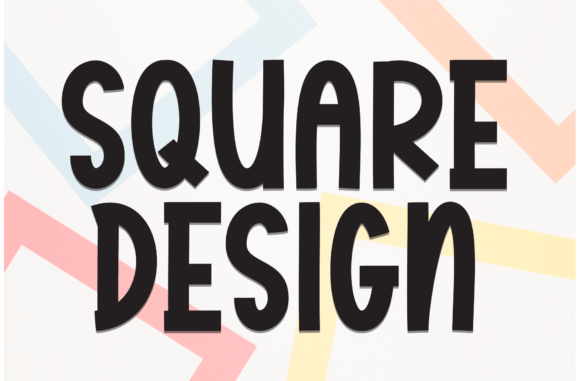
Introducing Square Design Font: The Perfect Blend of Simplicity and Friendliness
In the world of typography, fonts play a crucial role in conveying the tone and personality of a brand. A well-designed font can elevate a brand’s visual identity, making it more recognizable and memorable. One such font that has gained popularity in recent times is the Square Design Font. This casual and neat display font combines simplicity with a friendly, approachable vibe, making it an excellent choice for various design applications.
What is Square Design Font?
Square Design Font is a modern display font that boasts clean lines, balanced letterforms, and subtle rounded edges. Its design is a perfect blend of simplicity and elegance, making it suitable for a wide range of design projects. The font’s crisp structure and versatile style deliver clarity and charm in equal measure, making it an excellent addition to any design.
Key Features of Square Design Font
- Clean Lines: The font features clean lines that give it a modern and sleek look.
- Balanced Letterforms: The letterforms are carefully crafted to ensure balance and harmony, making the font easy to read.
- Subtle Rounded Edges: The subtle rounded edges add a touch of friendliness and approachability to the font.
- Versatile Style: The font’s versatile style makes it suitable for various design applications, from branding to digital content.
What Makes Square Design Font Special?
Square Design Font is special because it captures the essence of modern handwritten typography with a polished finish. Its unique blend of simplicity and elegance makes it stand out from other fonts. The font’s design is both modern and approachable, making it perfect for brands that want to convey a friendly and inviting image.
Use Cases for Square Design Font
Square Design Font is ideal for various design applications, including:
- Branding: The font is perfect for creating a strong brand identity that is both modern and approachable.
- Headlines: The font’s clean lines and balanced letterforms make it suitable for headlines and titles.
- Packaging: The font’s versatility makes it perfect for packaging design, adding a touch of elegance and sophistication.
- Digital Content: The font is also suitable for digital content, including social media posts, blog articles, and website headers.
Benefits of Using Square Design Font
Using Square Design Font offers several benefits, including:
- Improved Readability: The font’s clean lines and balanced letterforms make it easy to read.
- Enhanced Visual Identity: The font’s unique design helps to create a strong visual identity for brands.
- Versatility: The font’s versatility makes it suitable for various design applications.
- Time-Saving: The font’s design is both modern and approachable, saving designers time and effort in creating a unique visual identity.
How to Use Square Design Font Effectively
To use Square Design Font effectively, consider the following tips:
- Pair it with Other Fonts: Pair the font with other fonts to create a unique visual identity.
- Use it Consistently: Use the font consistently across all design applications to create a strong brand identity.
- Experiment with Colors: Experiment with different colors to find the perfect combination that suits your brand.
- Pay Attention to Typography: Pay attention to typography, ensuring that the font is used in a way that is clear and easy to read.
Square Design Font is an excellent choice for designers looking for a modern and approachable font. Its unique blend of simplicity and elegance makes it suitable for various design applications. With its clean lines, balanced letterforms, and subtle rounded edges, this font is sure to elevate your design and add a warm and inviting touch to any project.
FAQs About Square Design Font
- What is Square Design Font? Square Design Font is a modern display font that combines simplicity with a friendly, approachable vibe.
- What makes Square Design Font special? The font’s unique blend of simplicity and elegance makes it stand out from other fonts.
- What are the use cases for Square Design Font? The font is ideal for branding, headlines, packaging, and digital content.
- How can I use Square Design Font effectively? Pair the font with other fonts, use it consistently, experiment with colors, and pay attention to typography.